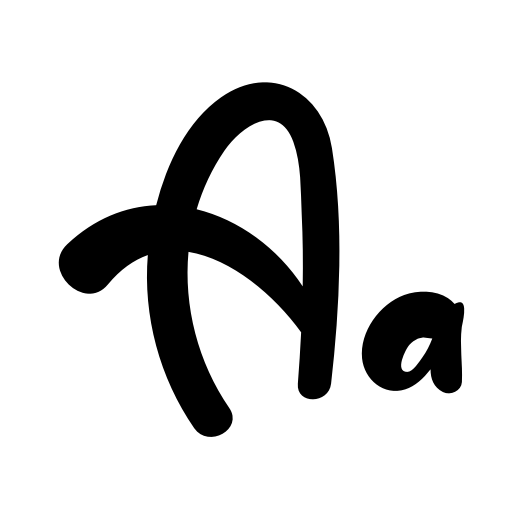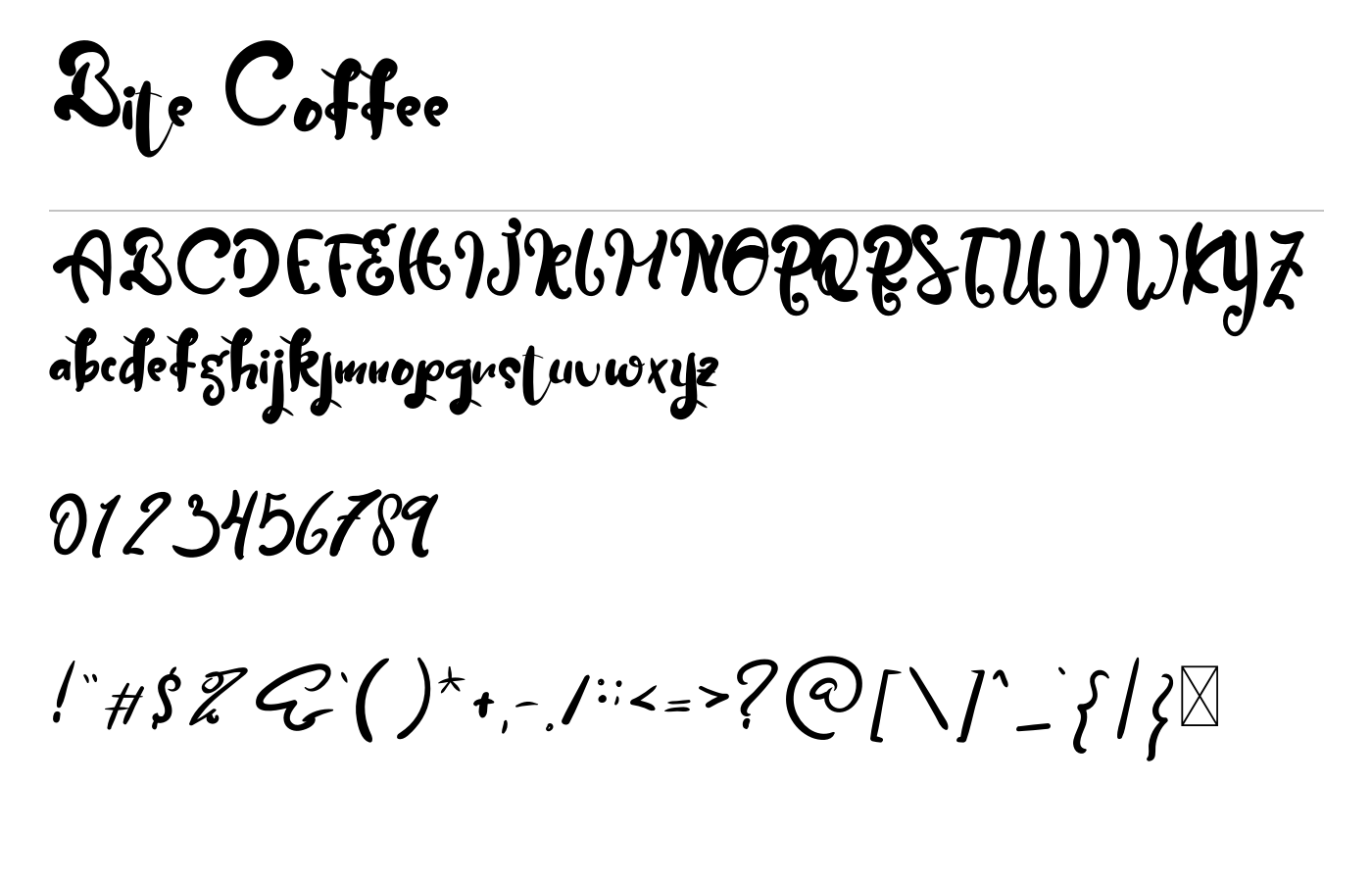
Bite Coffee is a whimsical, decorative script font with a playful and quirky personality. It features bold, curvy strokes with unusual letterforms that create a lively, handcrafted look, making it perfect for fun branding, creative headlines, and casual packaging. This font works best where a unique, eye-catching style is needed to convey creativity and charm.
Bite Coffee Font